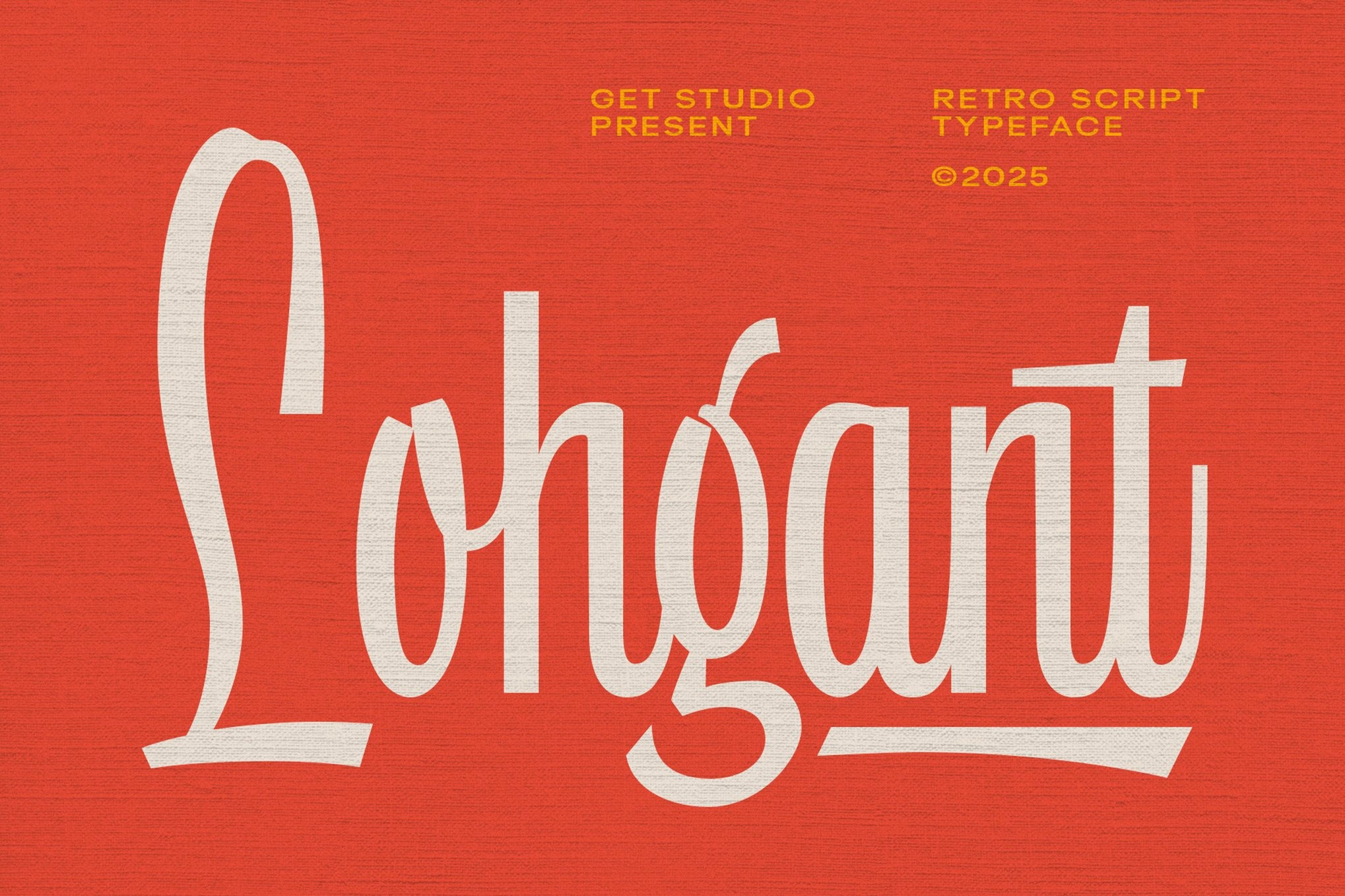
Lohgant – Retro Script Font
Lohgant – Retro Script Font is a clean and thoughtfully built typeface that works seamlessly for both professional branding and everyday creative uses. Lohgant Script is an upright, clean script font with a charming retro flair. Its smooth curves and vintage-inspired letterforms bring a timeless elegance to logos, packaging, and display designs.